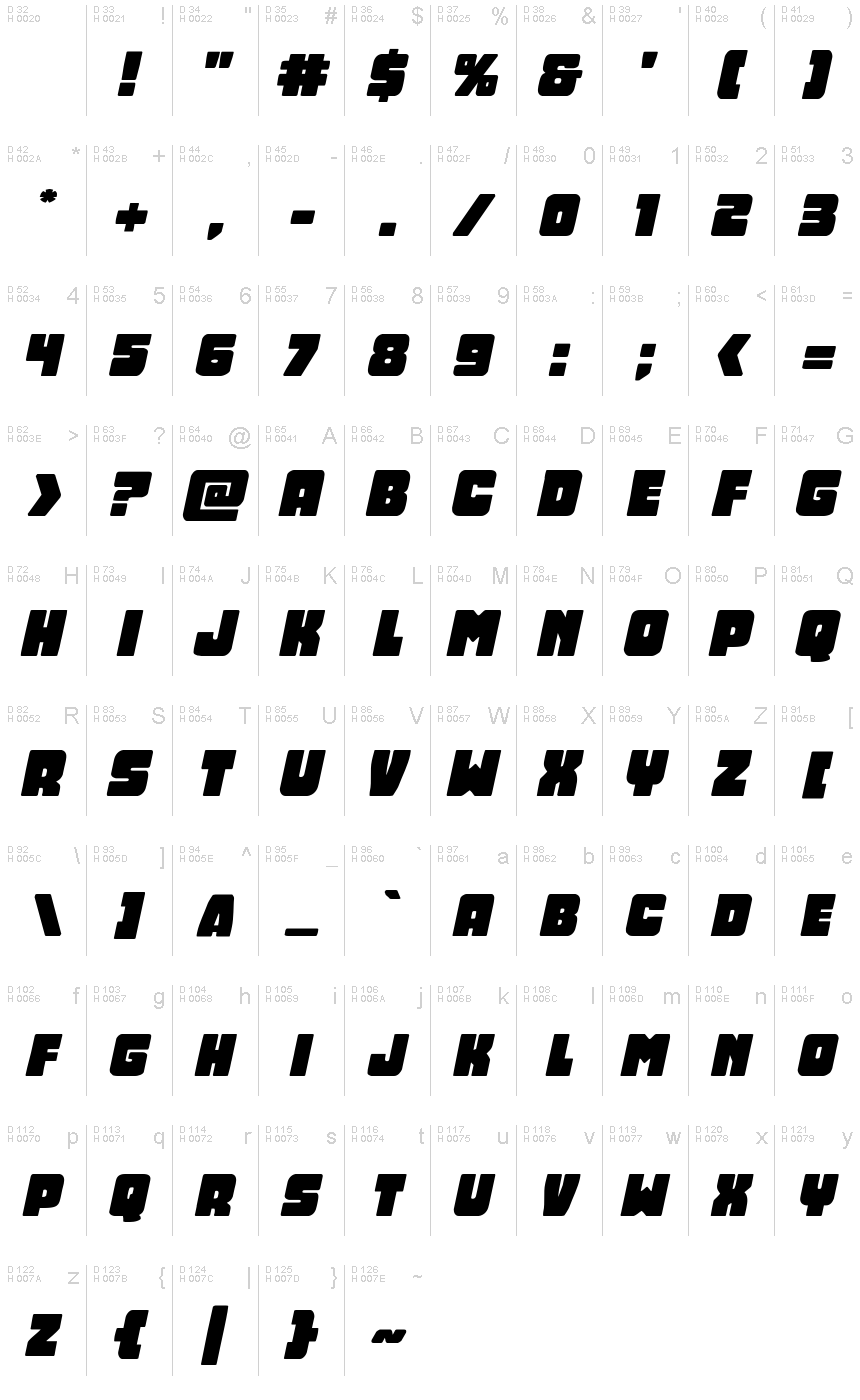
Opus Mundi Expanded Italic
Opus Mundi Expanded Italic embodies a striking fusion of classic elegance and modern flair. Designed by Daniel Zadorozny, this bold, display font exudes a sense of grandeur and authority. Its expanded letterforms and sharp, angular strokes create a dynamic, visually commanding presence, well-suited for impactful headlines, editorial layouts, and branding applications. The italic emphasis lends a touch of fluidity, adding depth and character to the overall aesthetic.
This versatile font excels in commanding attention, whether in large-scale signage, book covers, or website hero sections. Its powerful, yet refined appearance makes it a compelling choice for projects that demand a strong, distinguished typographic voice, from editorial publications to high-end product packaging.